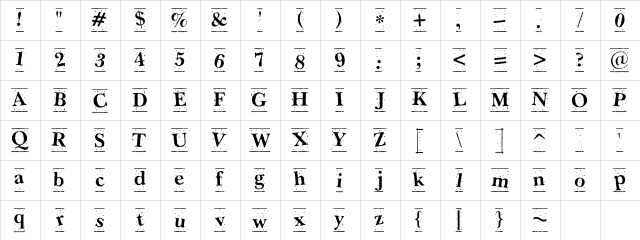
CK Boxed In Regular
Design Context for CK Boxed In Typeface
CK Boxed In takes a measured approach to typography — its balanced proportions and neutral character make it a reliable workhorse for both digital and print work.
Pro Tip: Use CK Boxed In in both headline and body roles to test its range before committing to a single application.